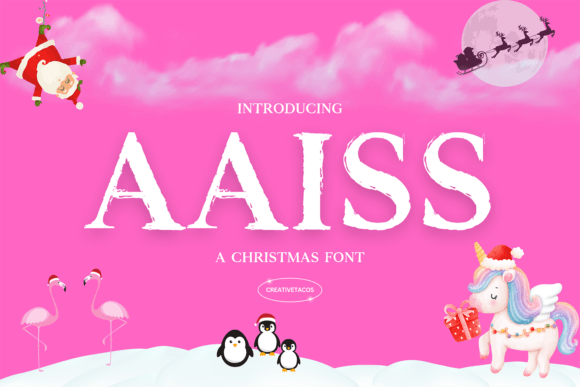
Introducing Aaiss Font, the ultimate font for your wedding backdrop! Created by Creative Tacos, this festive and decorative font is a must-have for adding a touch of holiday spirit to your design projects this holiday season.
With its bold and playful style, Aaiss Christmas Font is designed to catch your eye and instantly captivate your audience. Imagine the impact it will make on your headlines, greeting cards, party invitations, and more! This font will bring a cheerful and festive atmosphere to your designs, making them truly memorable.
Not only does Aaiss Christmas Font offer an aesthetically pleasing look, but it also provides functionality. It includes uppercase and lowercase letters, numbers, punctuation, and symbols, ensuring that you have everything you need to create complete and consistent designs. Plus, it supports multilingual characters, allowing you to reach a wider audience and cater to various language preferences.
Whether you're working on print or digital platforms, Aaiss Christmas Font is your go-to choice. It will effortlessly add a joyful and festive touch to your projects, making them stand out from the crowd. Say goodbye to boring and ordinary fonts, and let your creativity shine with the unique and eye-catching Aaiss Christmas Font.
This holiday season, make a statement with Aaiss Christmas Font. Its versatility and charm make it the perfect companion for any design project. Spread the holiday cheer and elevate your creations with this extraordinary font. Don't miss out on this opportunity to take your designs to the next level.